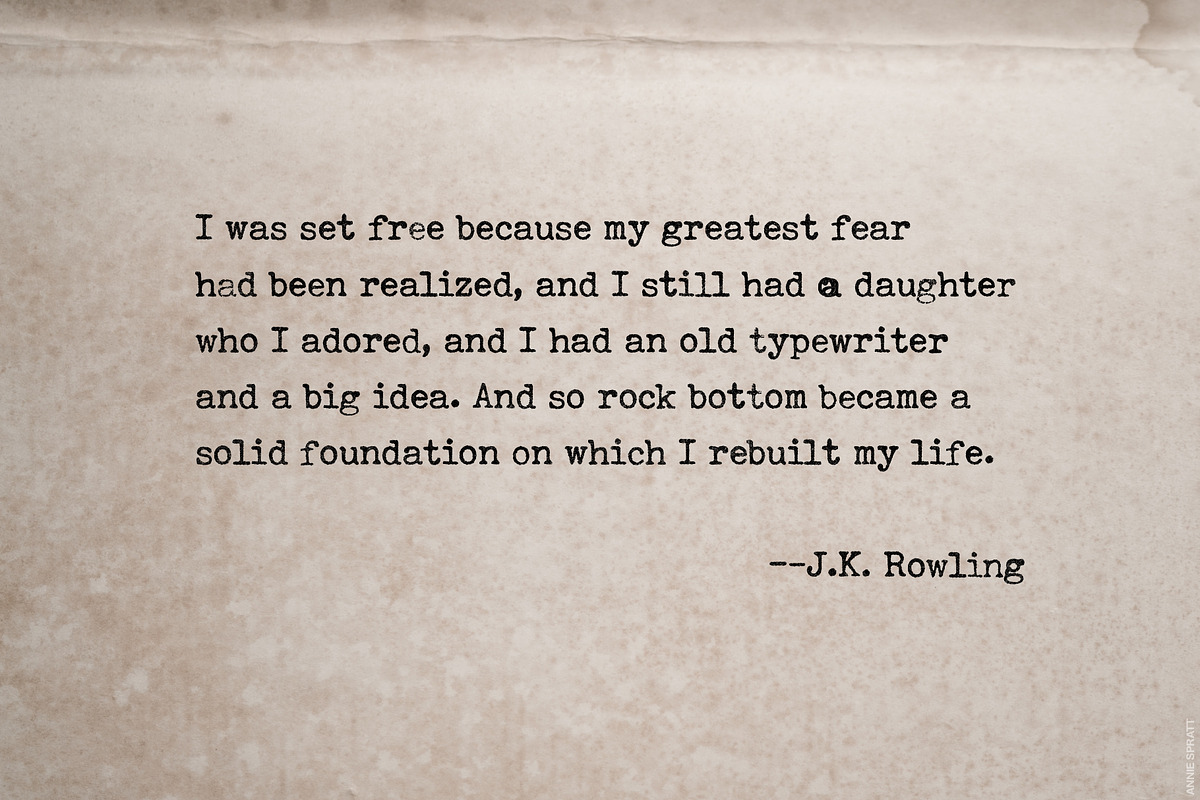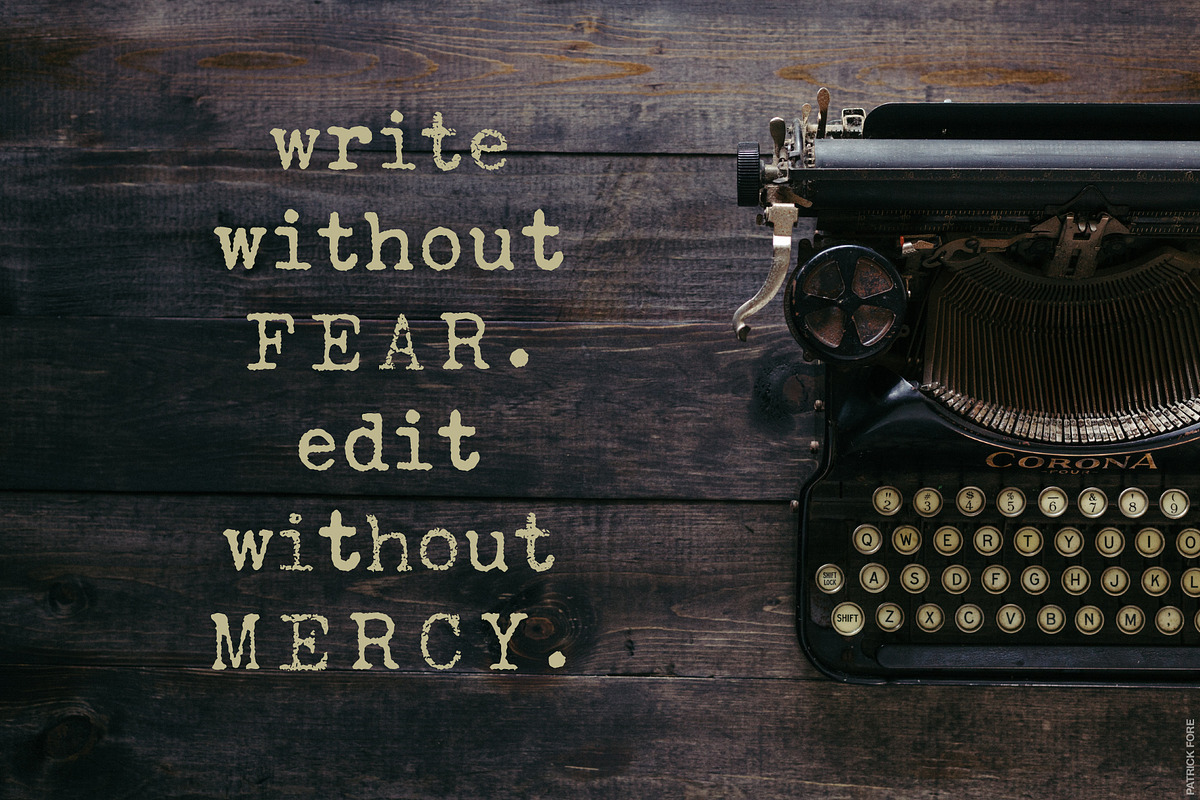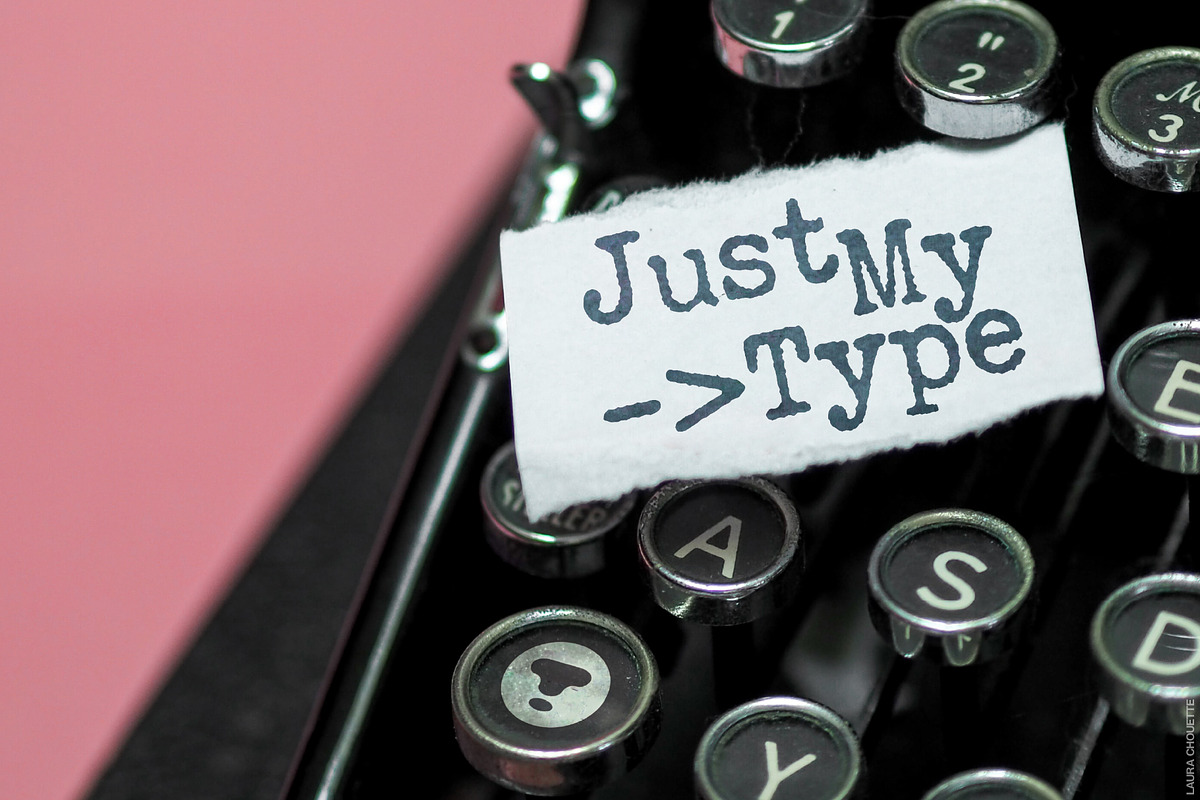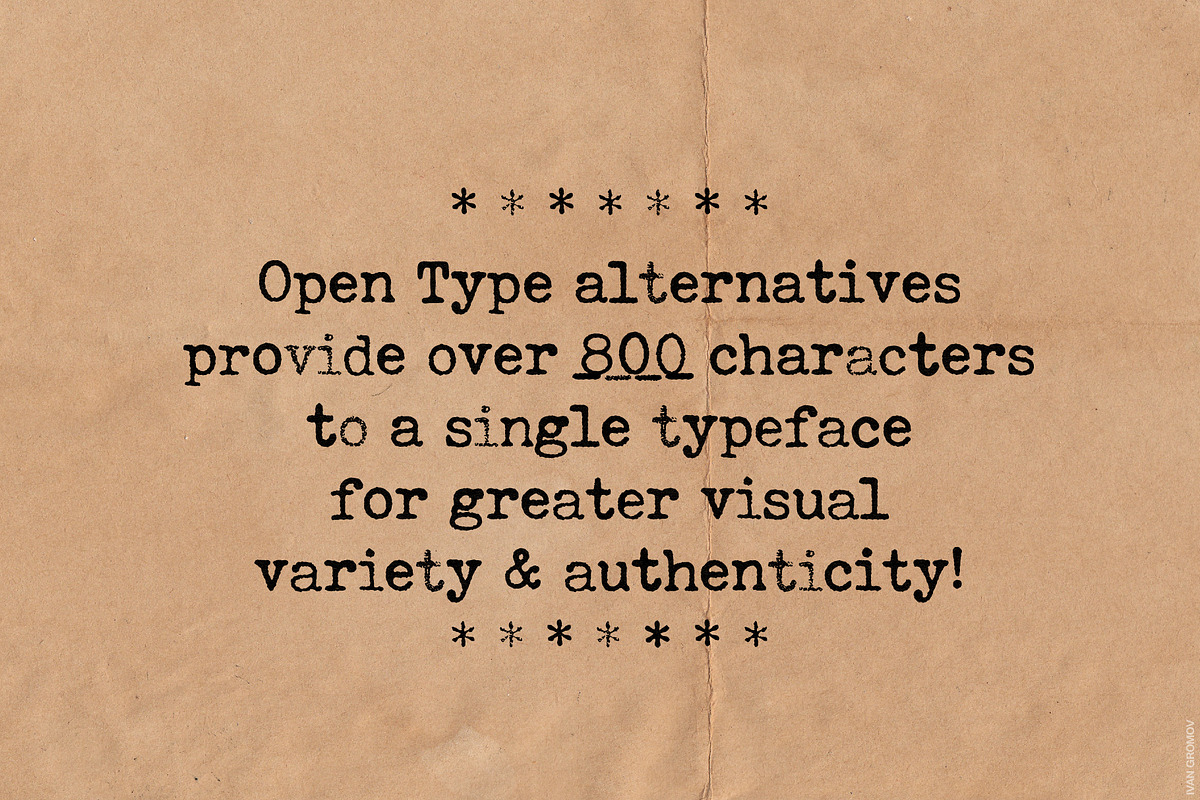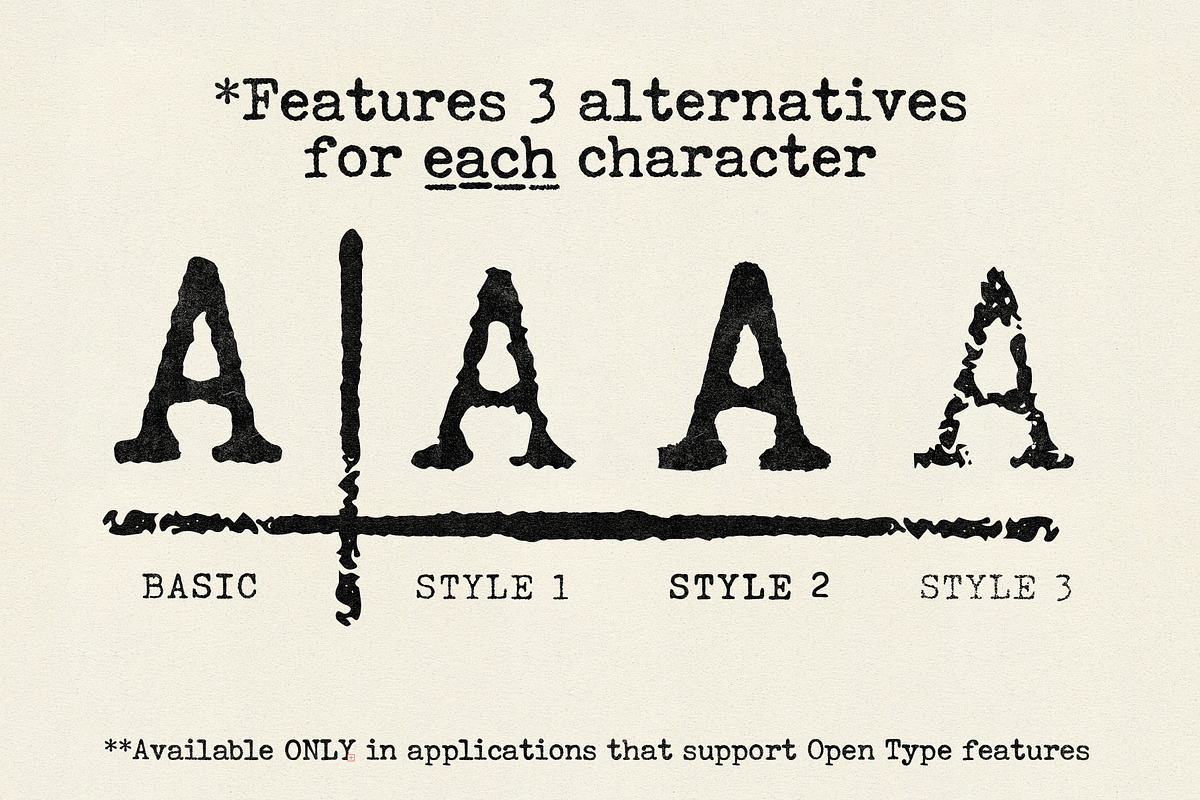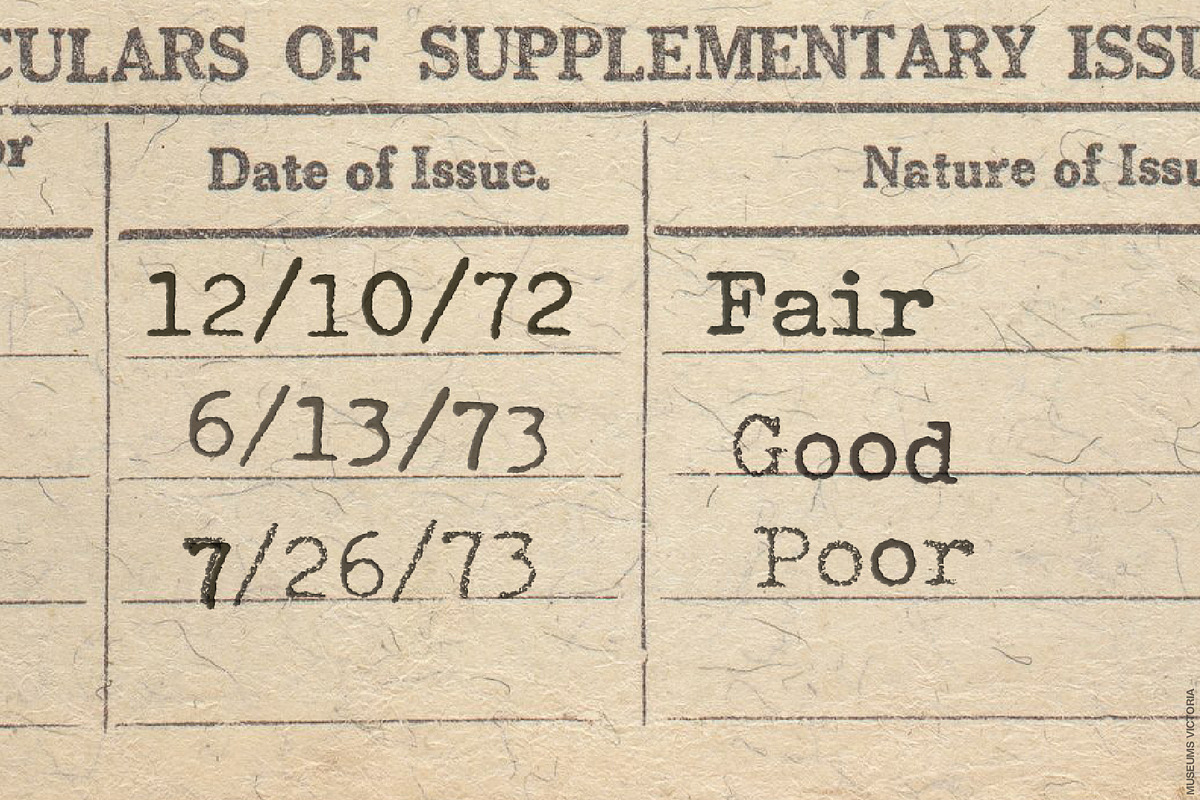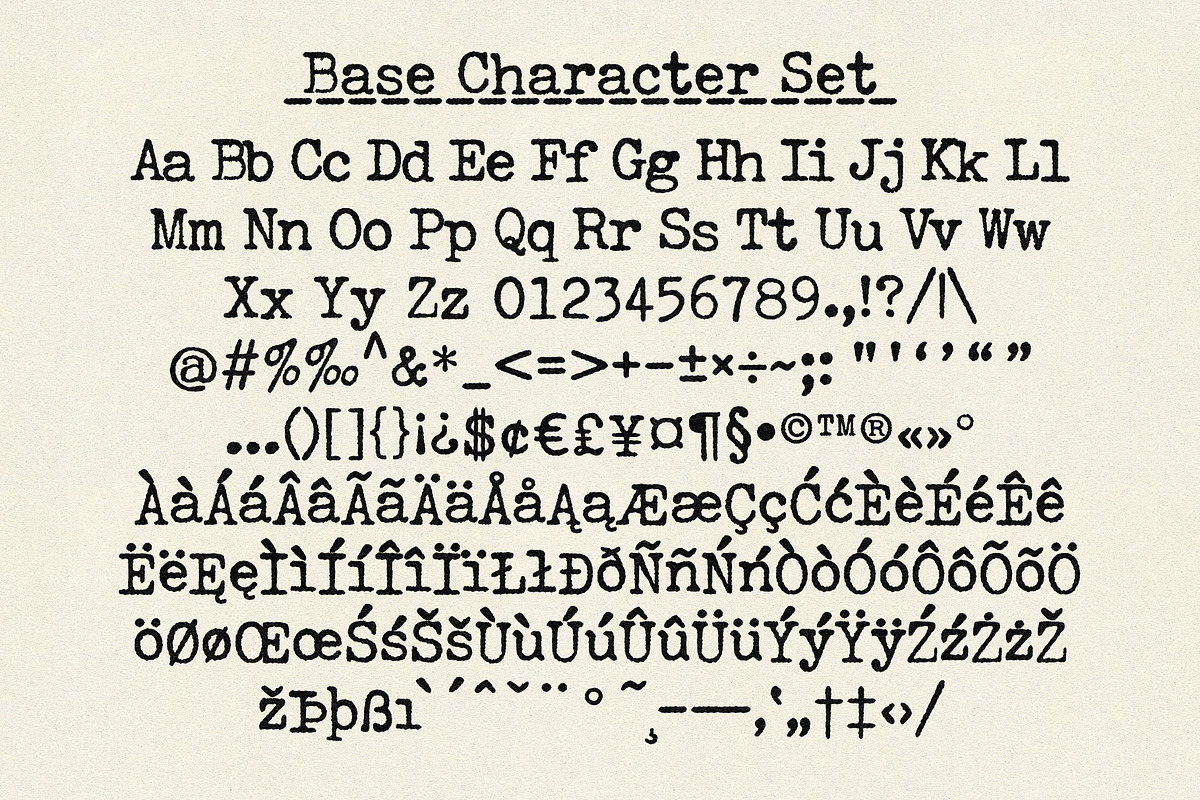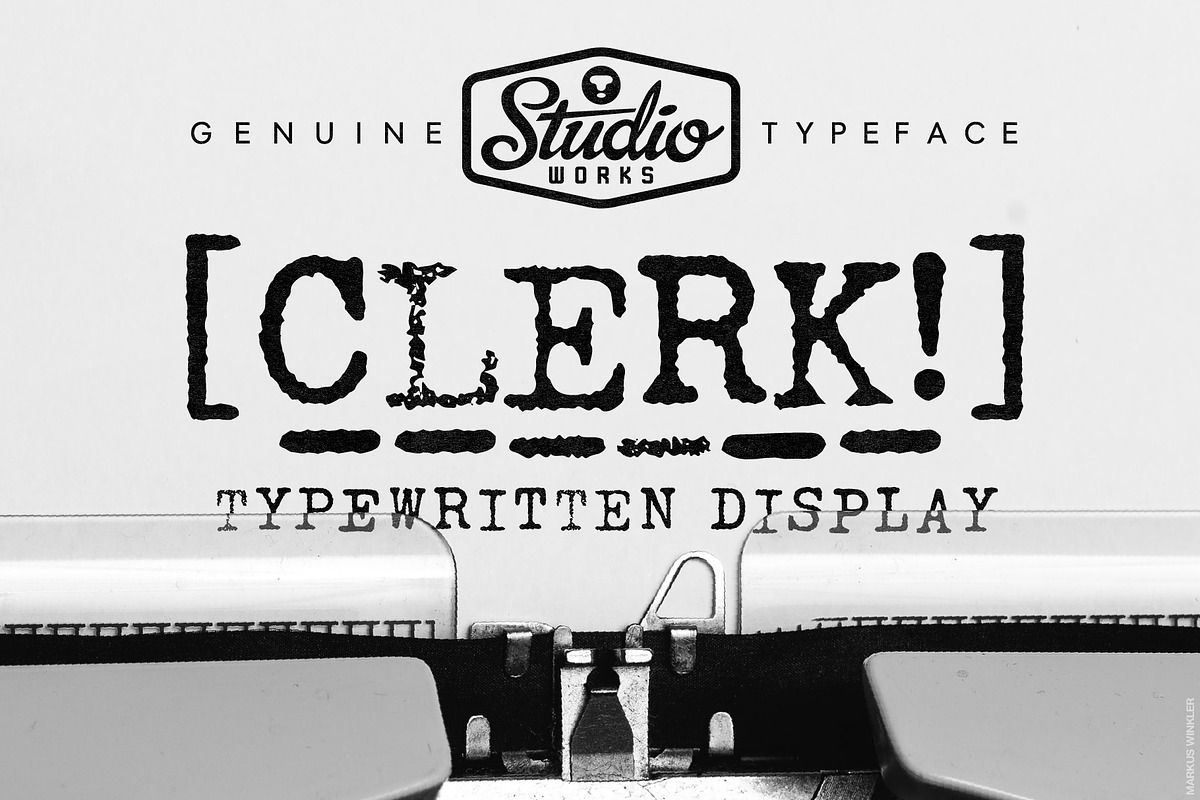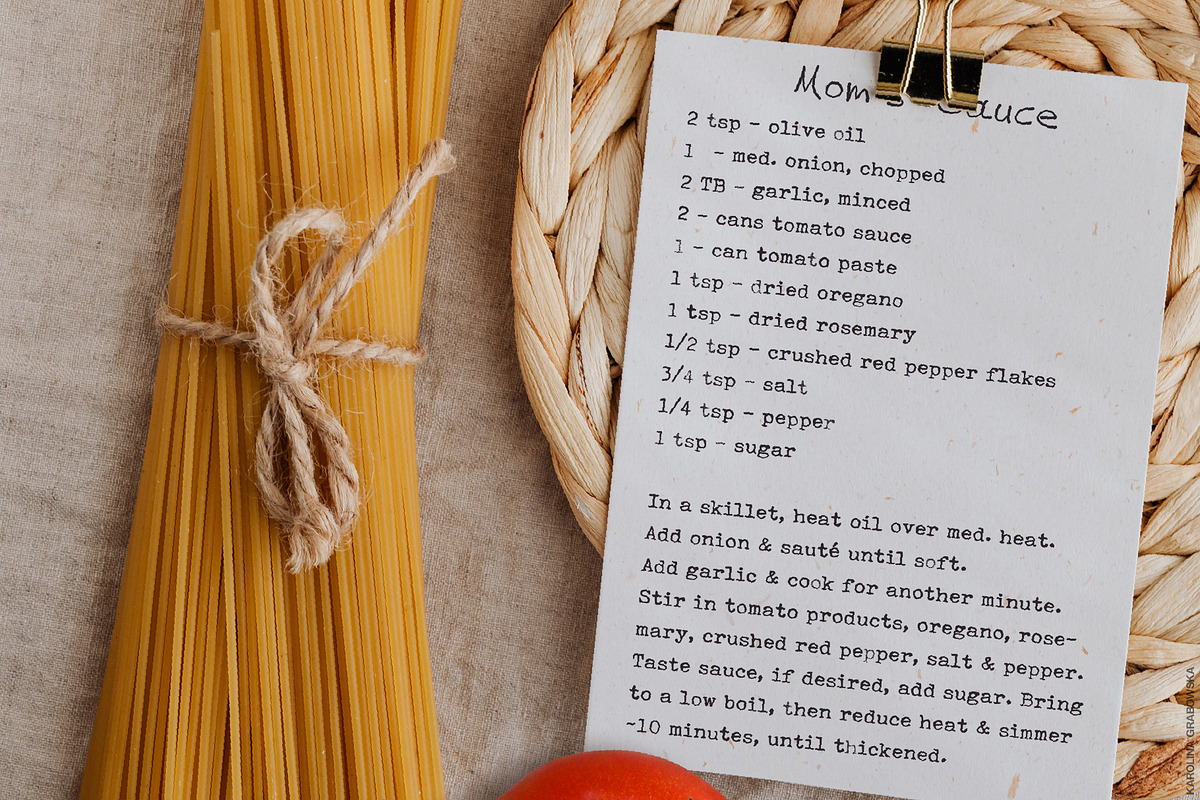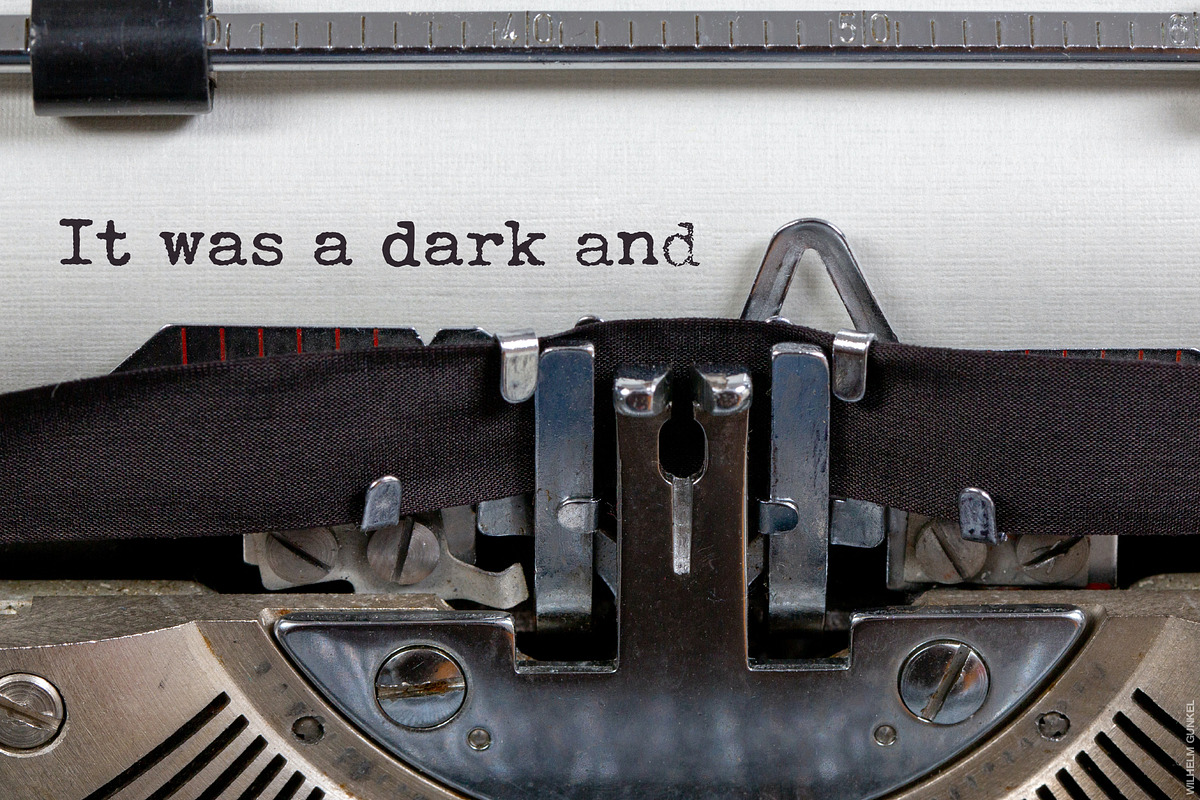
Clerk | Typewritten Display Type!
Studioworks gets back to the basics with •• C L E R K •• — a typewritten display face. Clerk relives the days of manually fontstriking letters with keys, typebars and ink ribbons — a primitive time when a bell announced every carriage return.
Based on the early serif alphabets of the standard QWERTY typewriter, Clerk boasts a character set of well over 800 glyphs. With three additional Open Type alternatives for every character, you’ll be able to replicate the subtle, inconsistent qualities of typewriting’s imperfection. NOTE: Character alternatives are only available in those applications that support Open Type features.
Check out what you get with Clerk:
- Over 800 glyphs! – a total of four styles for every character to guarantee variety
- Upper (A-Z) and lower case (a-z) characters
- Numbers (0-9)
- Standard punctuation and glyphs
Use Clerk on logos, labels, headings, fliers, posters, brochures, manuscripts — any project that requires the understated simplicity of typographic contrast. Clerk brings a fundamentally earnest and empirical authority to your designs without all that backspacing and white out. TAP-TAP-DING!